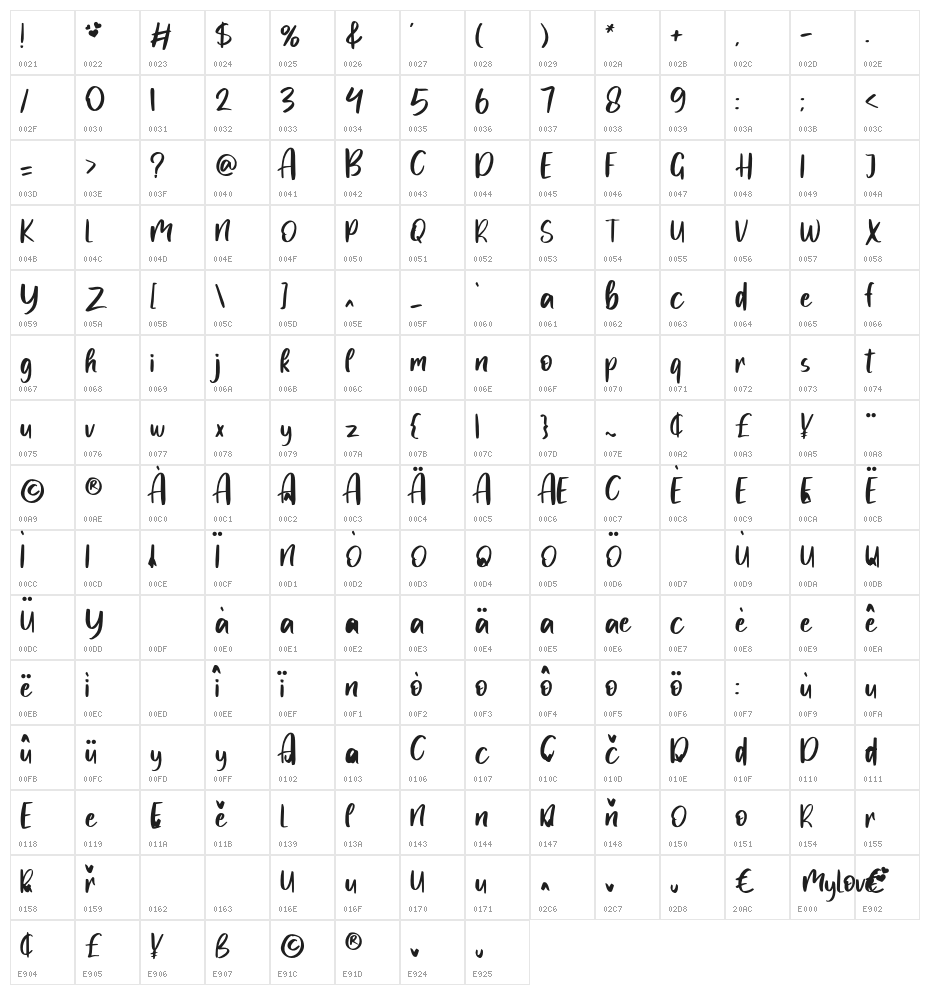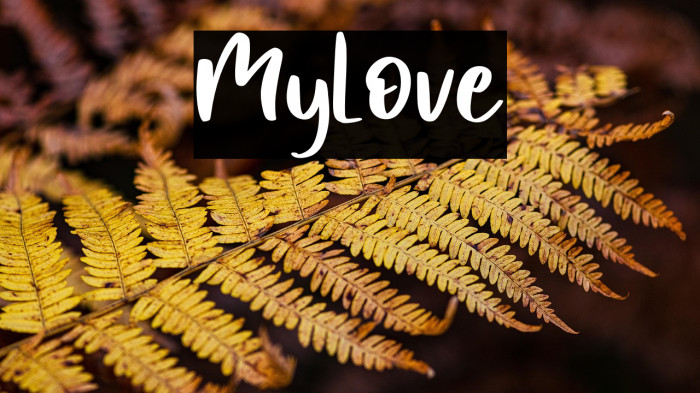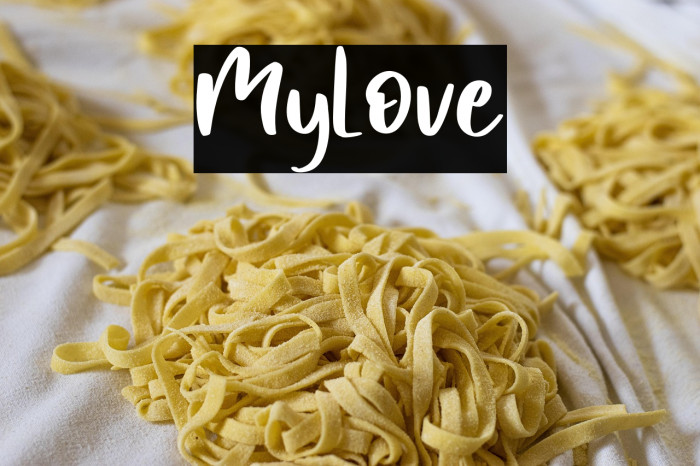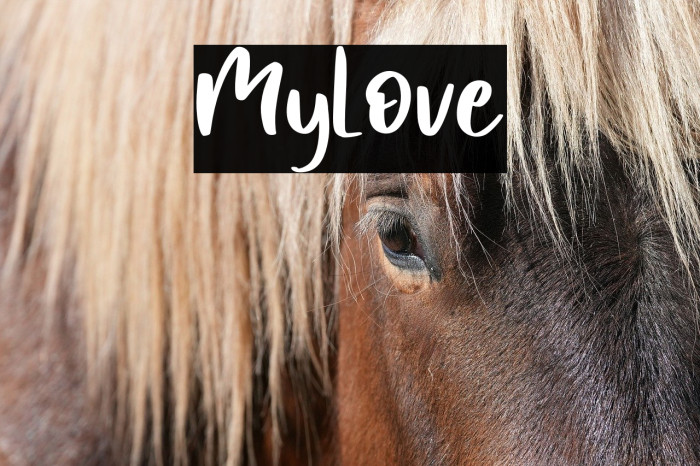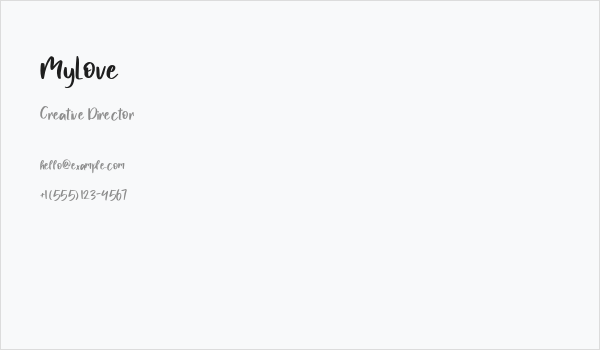
MyLove Font
MyLove Description
This font features a playful and energetic handwritten style, characterized by its bold and flowing letterforms. The uppercase letters are tall and slightly condensed, while the lowercase letters maintain a consistent rhythm with a casual flair. The numbers are dynamic and match the overall lively aesthetic. Special characters are creatively integrated, adding to the font's expressive nature. The strokes vary in thickness, providing a medium contrast that enhances readability while maintaining a whimsical appearance.
Overall StylePlayful, Energetic, Casual
Proposed ProjectsIdeal for greeting cards, playful branding, social media graphics, and children's book covers.